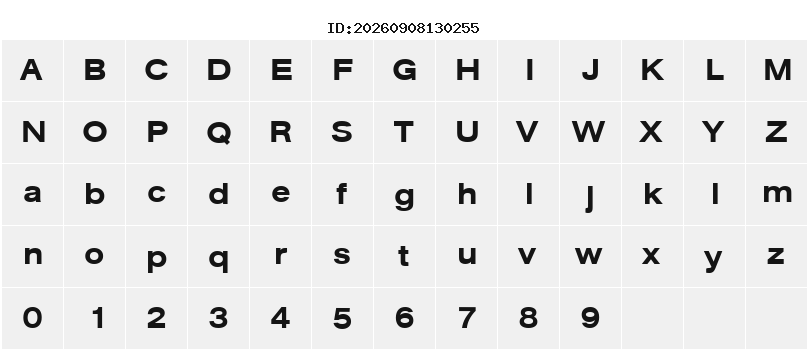
URWAccidaliaBucTMedExt Preview
About URWAccidaliaBucTMedExt.ttf
URWAccidaliaBucTMedExt.ttf is a modern, elegant sans-serif font designed for ultimate readability and visual harmony. Perfect for branding, headlines, web design, and print materials.